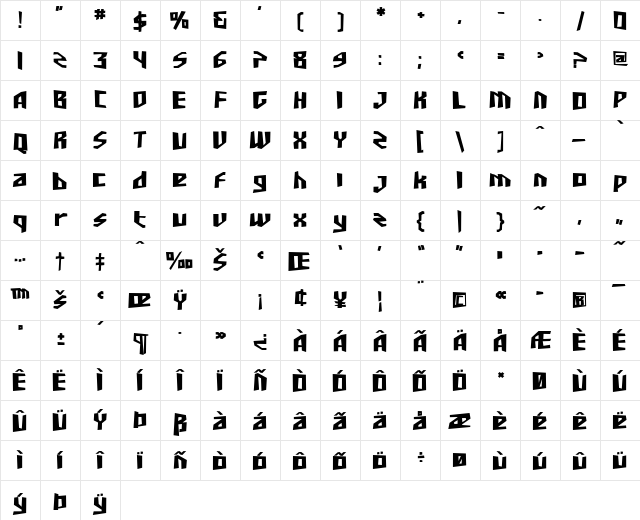
Complete SF Junk Culture Bold glyph index. Displaying only characters natively supported by SF Junk Culture Bold font.
SF Junk Culture is a composed and adaptable typeface that performs quietly and consistently across a wide range of design contexts. Its bold stroke weight gives it real presence on the page.